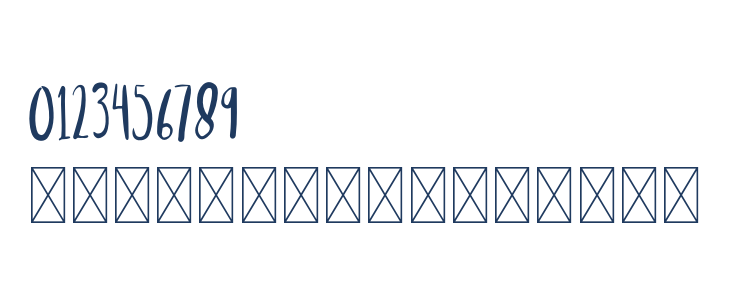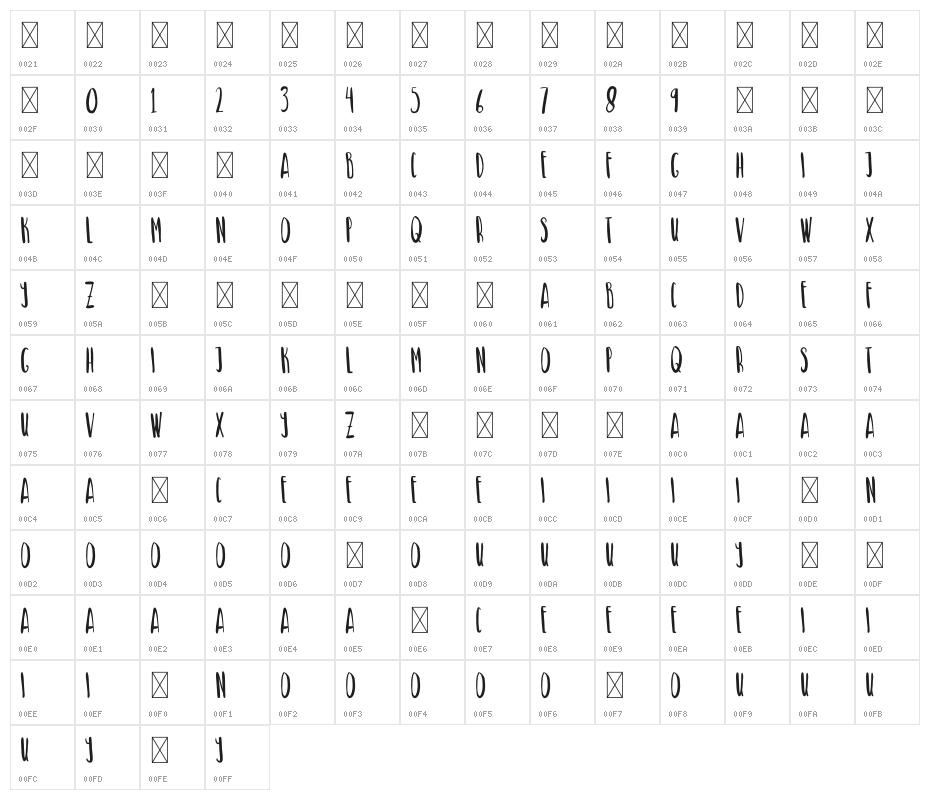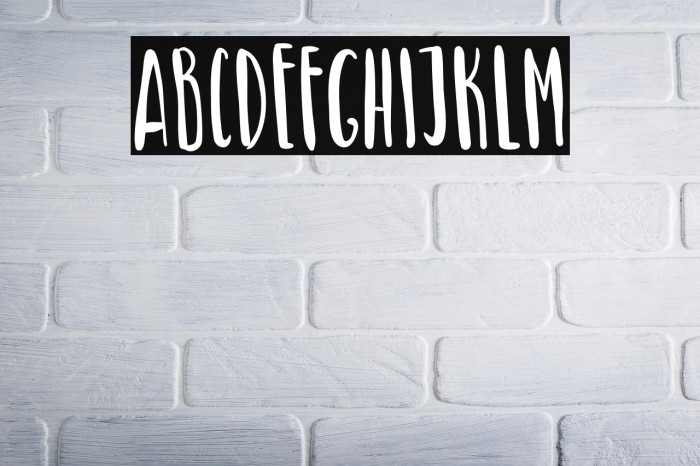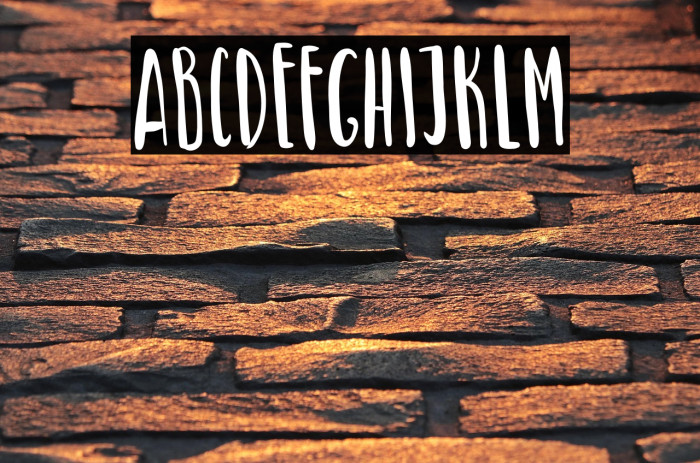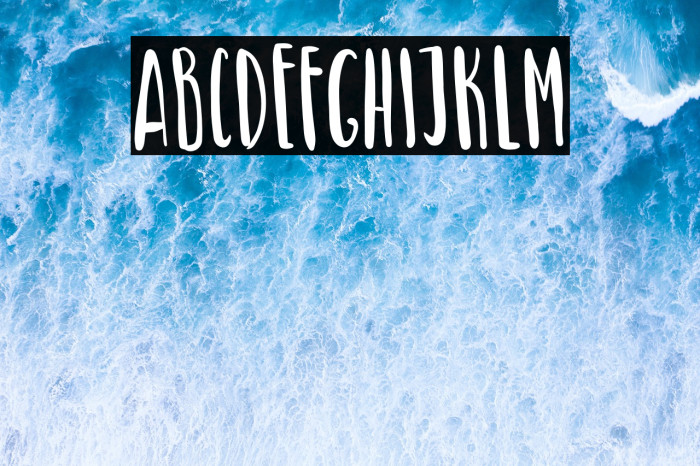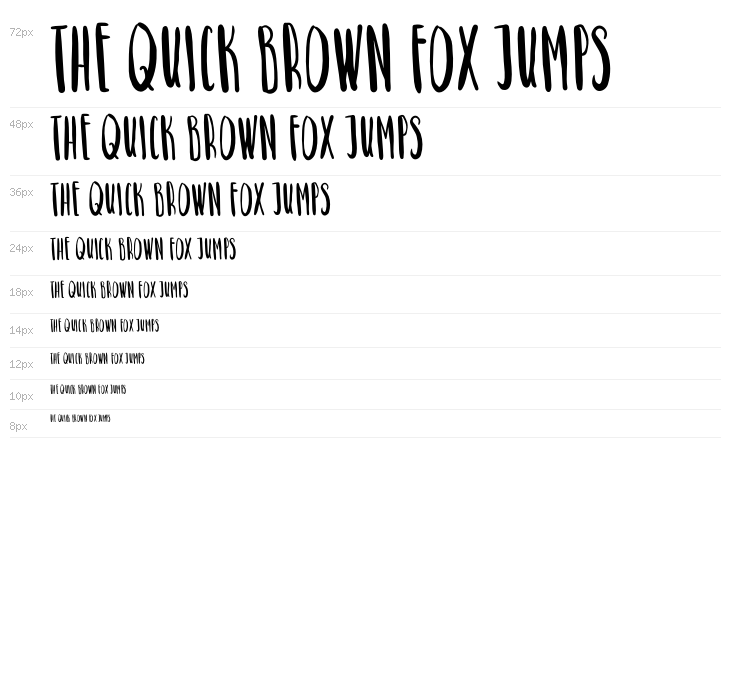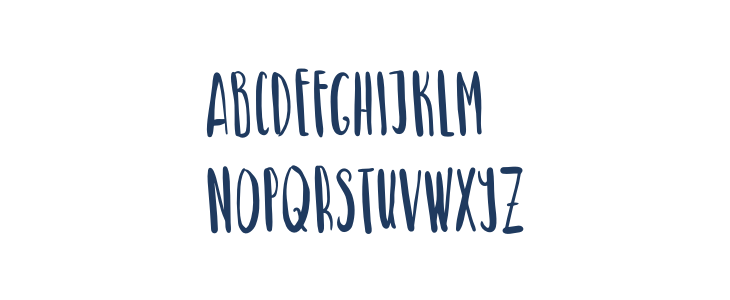
Green Turtle Font
Green Turtle Description
This playful and energetic font features a handwritten style with a casual and friendly appearance. The characters are slightly elongated with a consistent stroke width, giving them a lively and approachable feel. The uppercase and lowercase letters maintain a uniform height, while the numbers are well-integrated into the overall design. The font's informal and whimsical nature makes it suitable for creative projects that require a personal touch. Its simplicity and charm are enhanced by the smooth curves and rounded edges, making it easy to read while retaining a unique character.
| Overall Style | Casual |
| Use Case | Headlines, Logos, Informal Text |
| Proposed Projects | Ideal for greeting cards, children's books, playful branding, and social media graphics. |